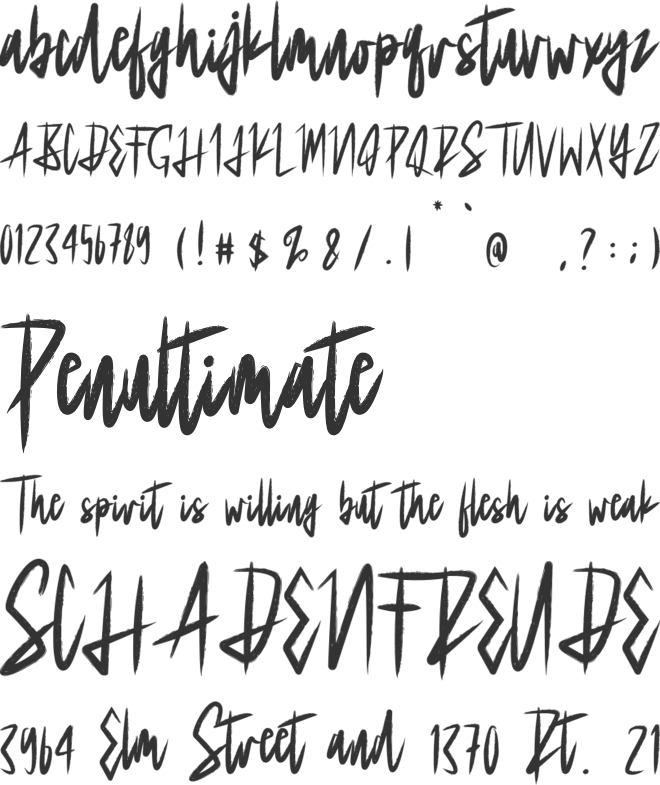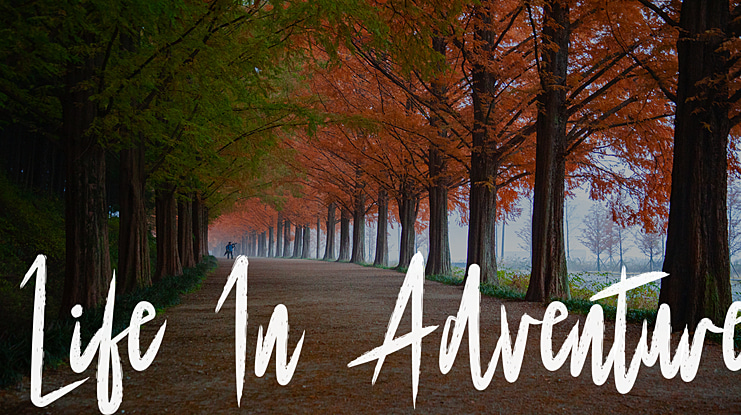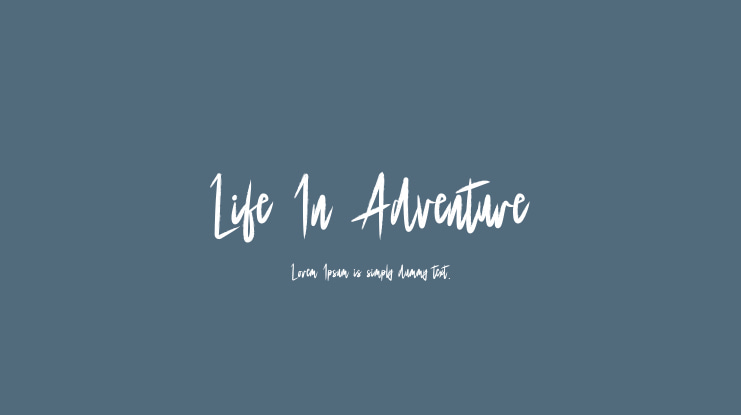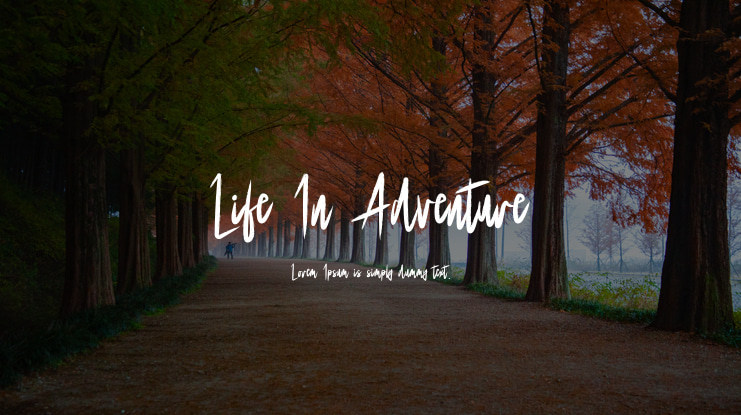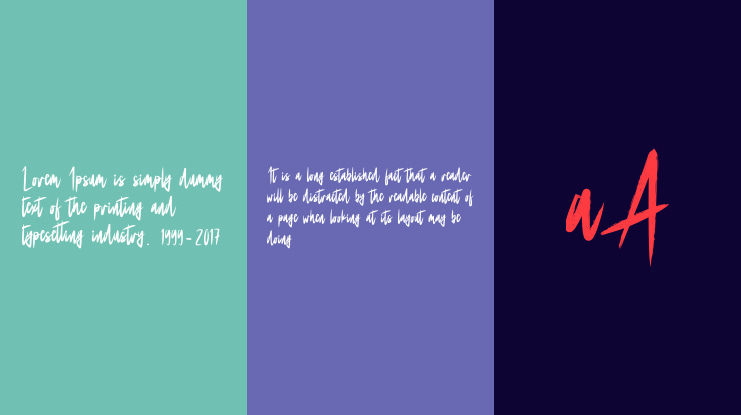
Life In Adventure Font
Life in Adventure is a trendy and cool brush-style handwritten font. Add it confidently to your projects and you will be amazed by the outcome generated!